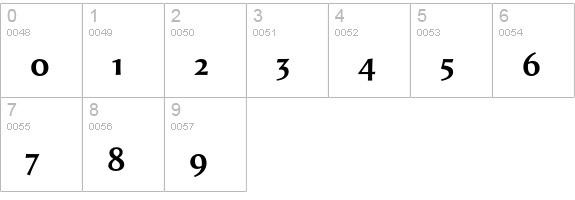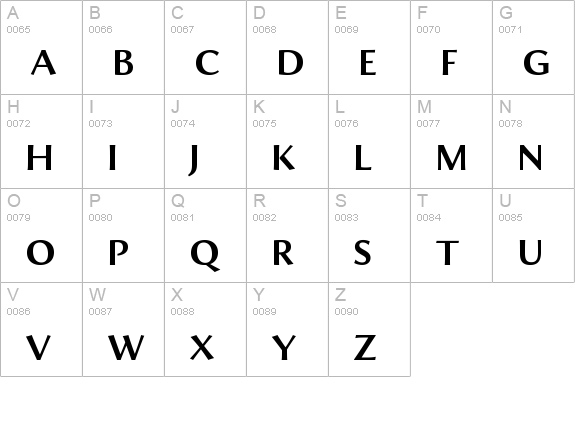
ShellSans-Bold is a strong, high-contrast variant in the ShellSans typeface family \xE2\x80\x94 well suited to headlines, attention-grabbing titles, and strong calls-to-action.
ShellSans-Bold is a striking and versatile font that exudes confidence and boldness. Its strong and commanding presence makes it perfect for headlines, titles, and attention-grabbing designs. With its clean and modern appearance, ShellSans-Bold is the ideal choice for individuals and businesses looking to make a statement. This font's unique combination of sleek lines and bold strokes creates a visually appealing and impactful design. Its harmonious balance of thick and thin elements ensures legibility and readability across various mediums and sizes. ShellSans-Bold is not only visually appealing but also incredibly practical. It is designed to withstand the test of time and can be used in a wide range of projects, from print materials to digital designs. Its versatility makes it suitable for both professional and creative purposes, whether in advertising, branding, editorial layouts, or web design. One of the best things about ShellSans-Bold is that it is freely available to download at FontsMarket.com. This means that you can access this exceptional font without any cost, making it an excellent choice for those who want to elevate their designs without breaking the bank. FontsMarket.com offers a user-friendly platform where you can easily find and download ShellSans-Bold and other high-quality fonts for all your design needs. In conclusion, ShellSans-Bold is a visually captivating and versatile font that embodies strength and confidence. Its clean and modern design, combined with its legibility and versatility, makes it a perfect choice for various design projects. And the best part is, you can freely download ShellSans-Bold at FontsMarket.com and enhance your designs with this exceptional font.